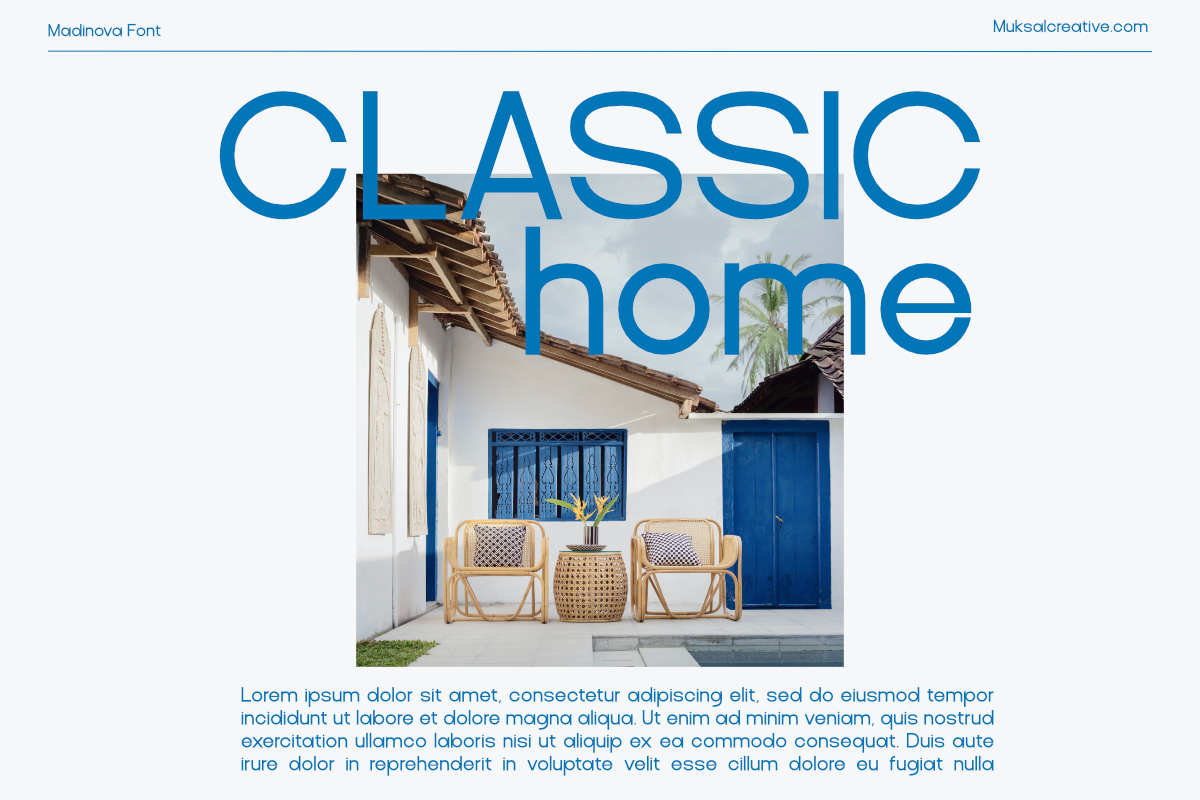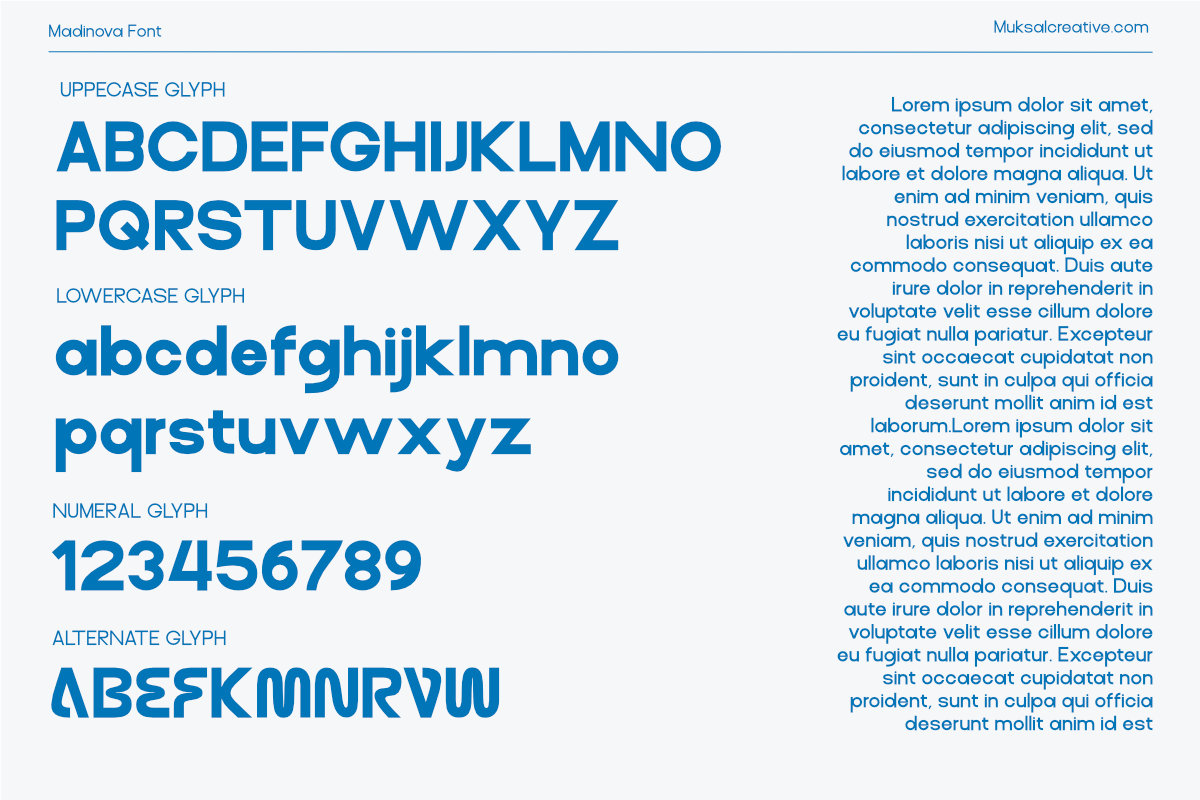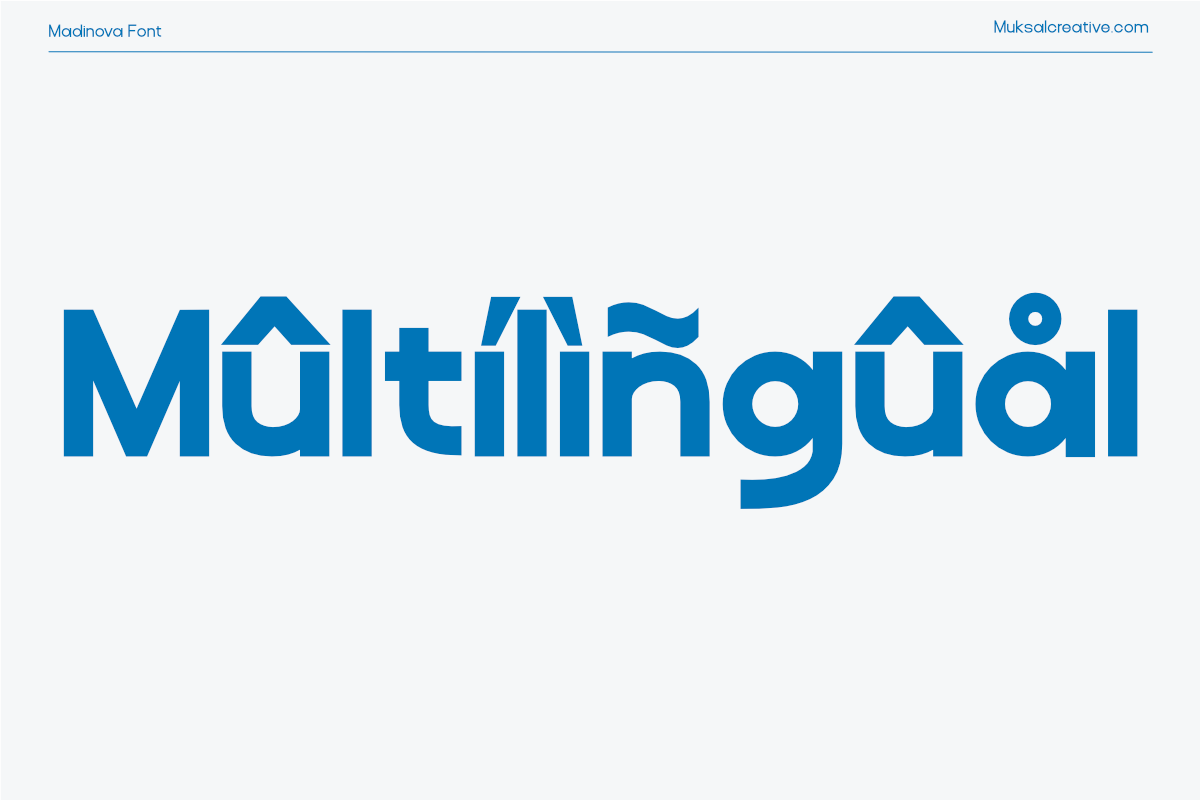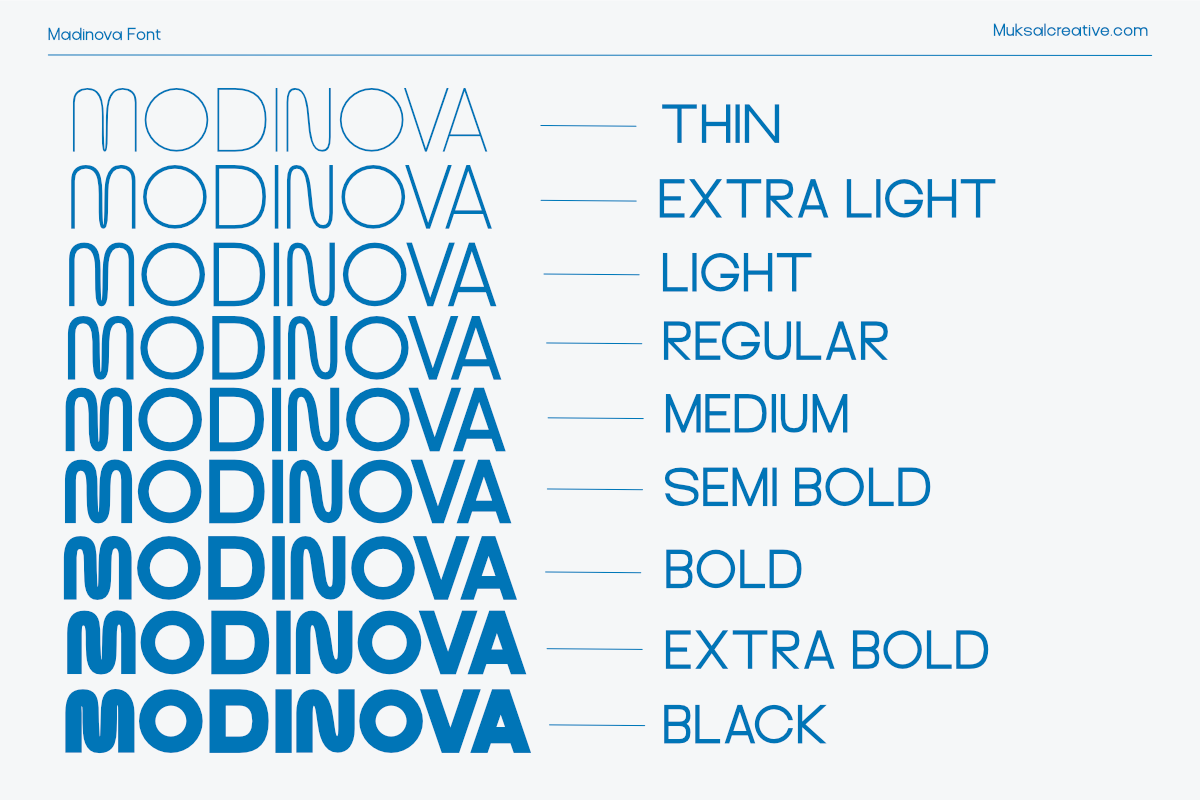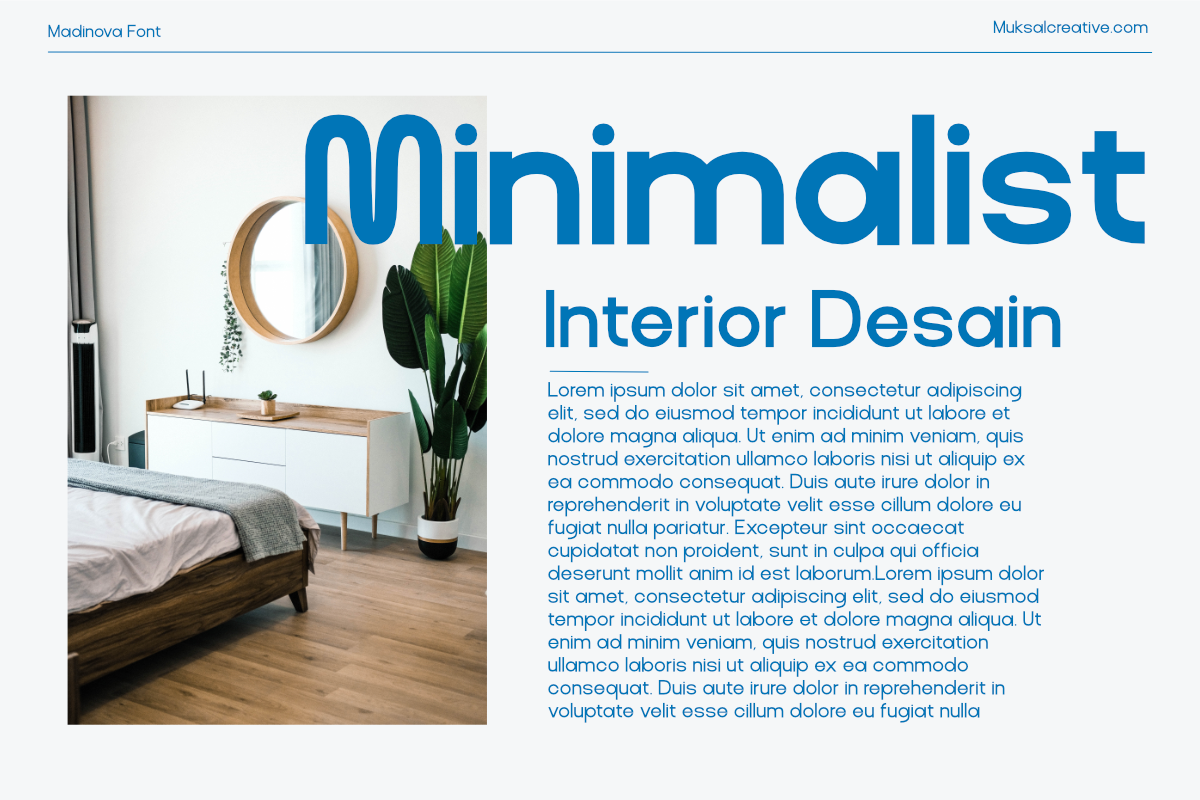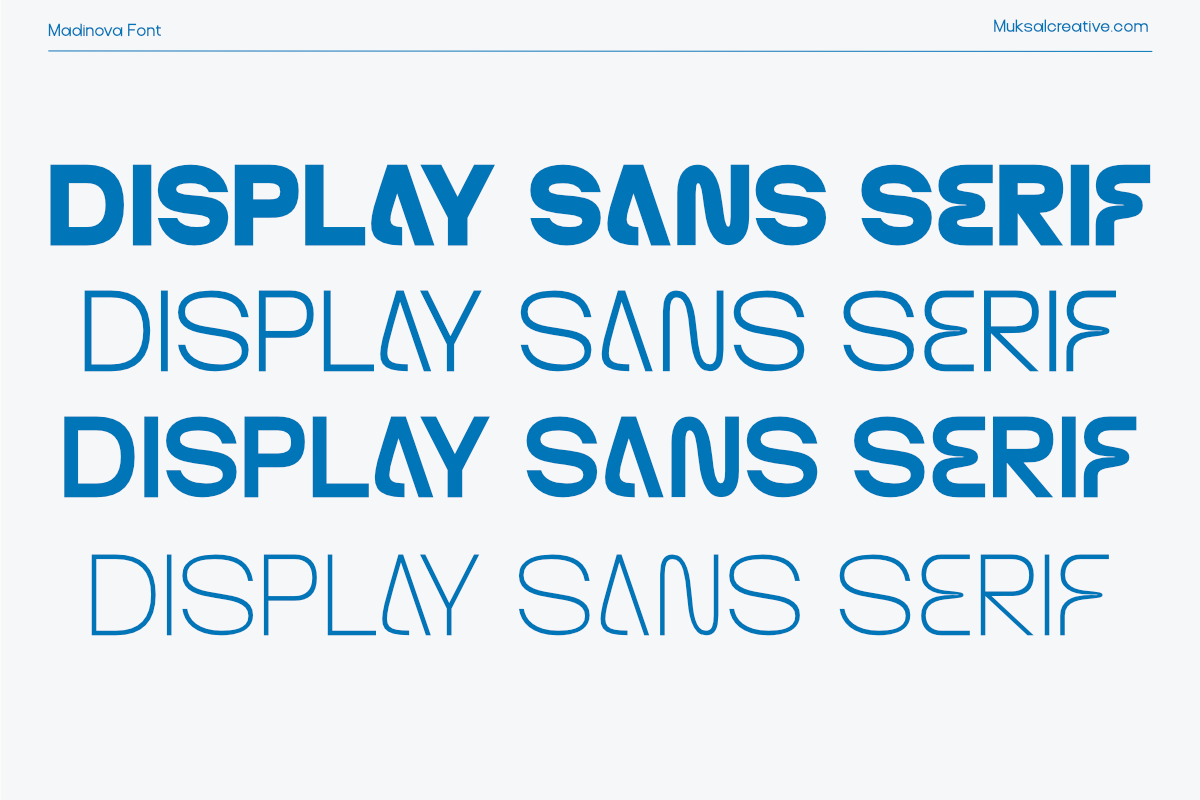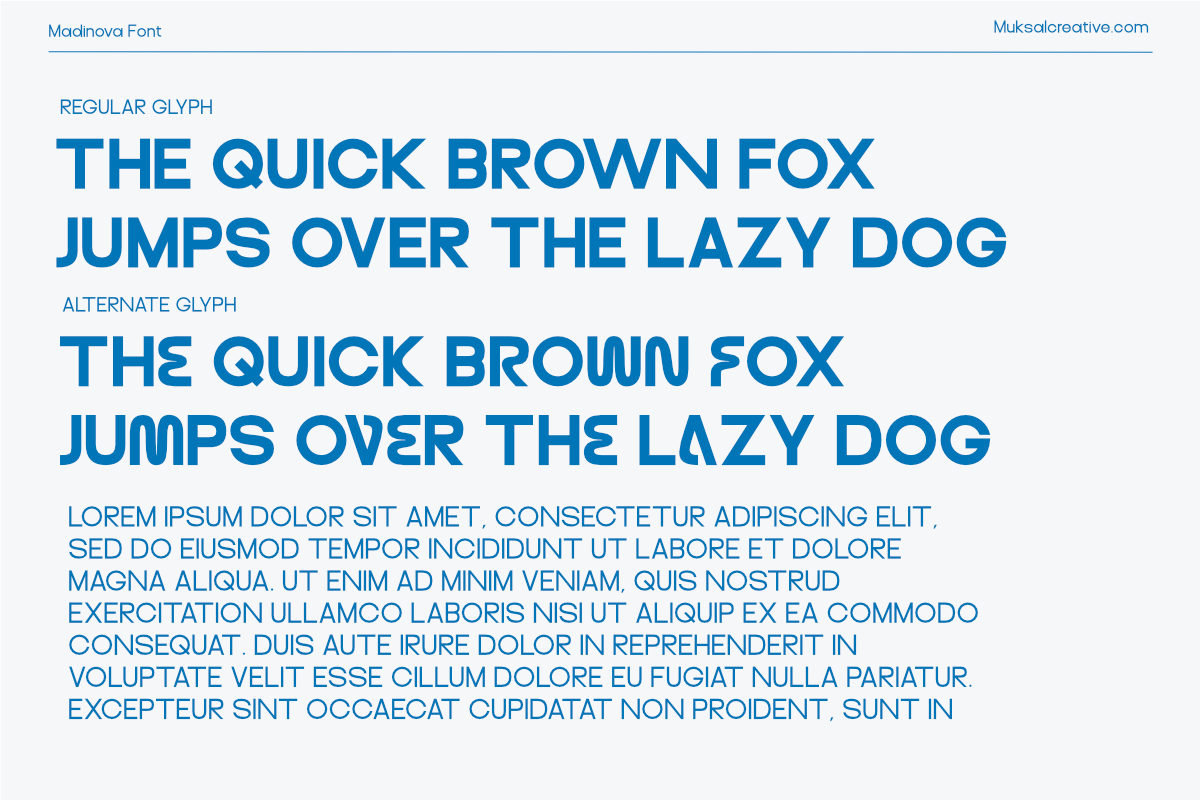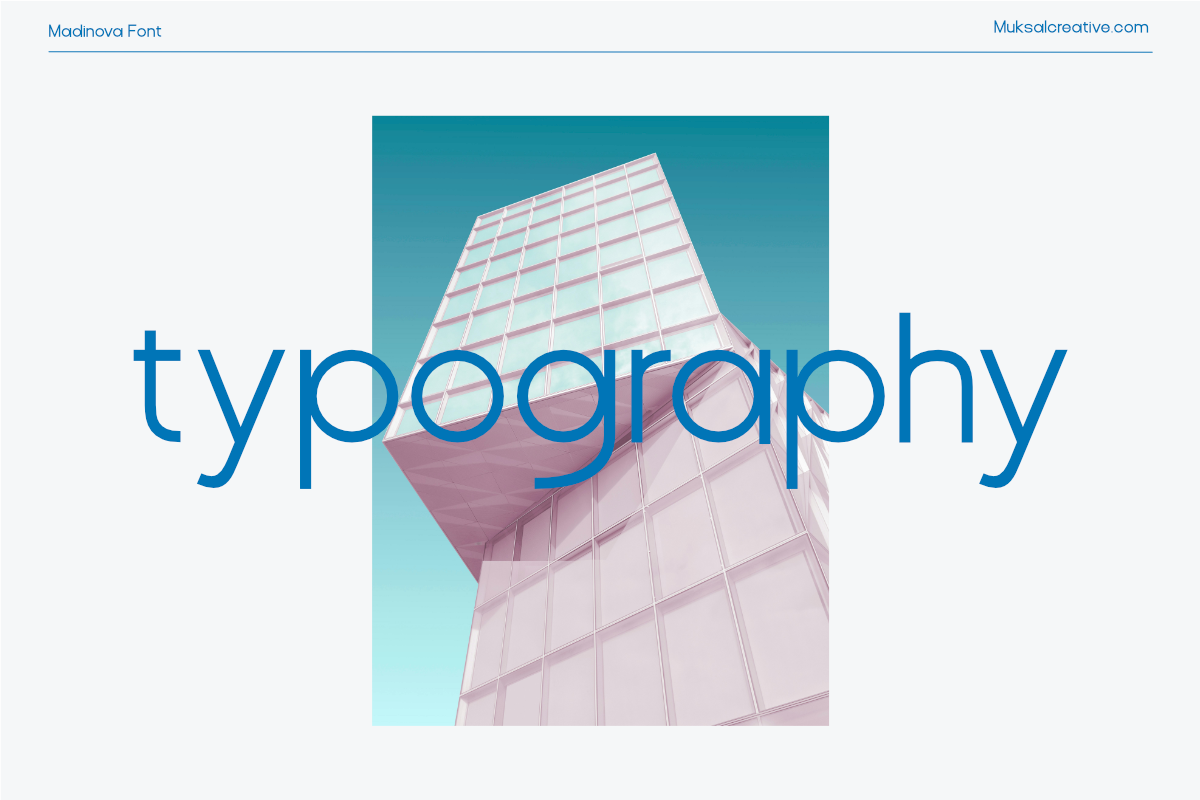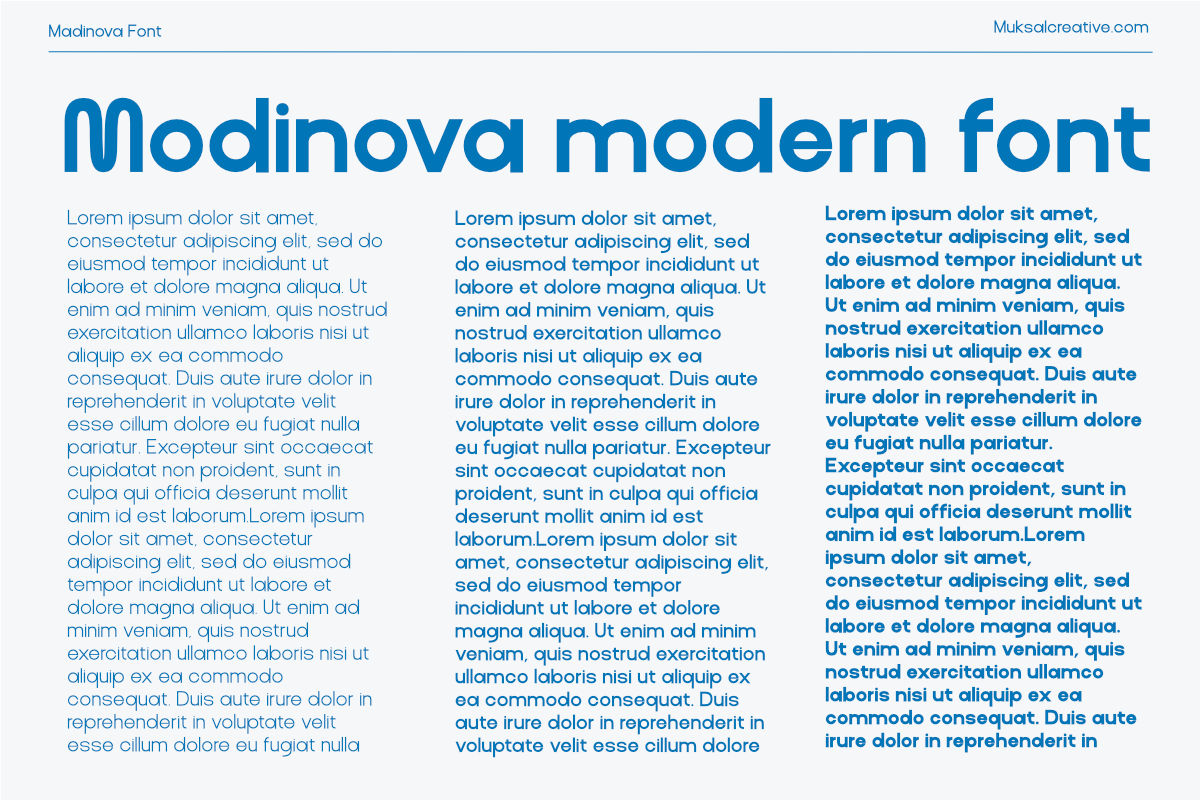
Modinova
Modinova is a modern sans-serif font designed to combine clarity and style. With 9 distinct styles ranging from Thin to Black, this font offers flexibility for a wide variety of design needs, from elegant typography to bold, striking headlines.
Each character in Modinova is crafted with balanced proportions and subtle details, making it an excellent choice for editorial design, branding, digital interfaces, and more. Its clean geometric design and precise contours give it a professional yet approachable appearance, ensuring readability at all sizes.
Key Features: 9 styles, from Thin to Black. Minimalist and modern sans-serif design. Perfect for both print and digital use. Multilingual typography support.
With its contemporary aesthetic and unmatched versatility, Modinova is the perfect tool for creative designers everywhere.